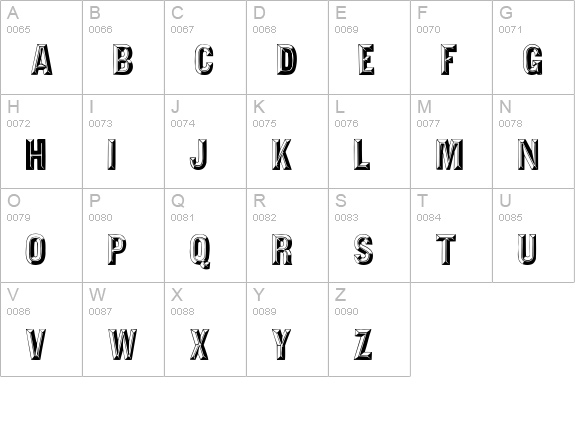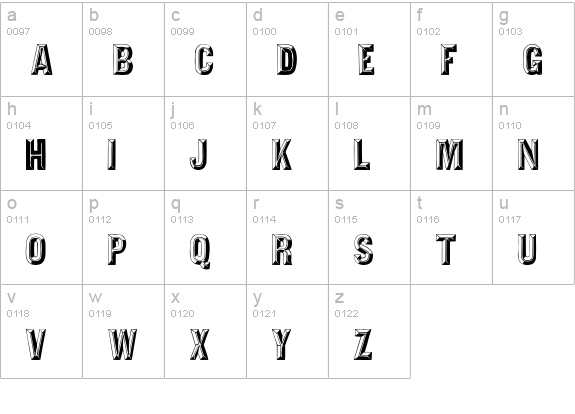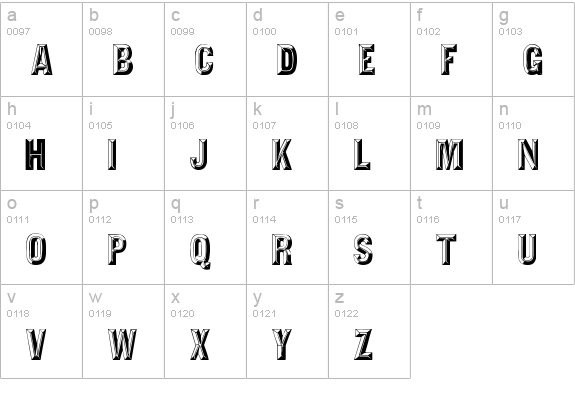
TejaratchiCaps Font Details
TejaratchiCaps is a stunningly stylish font that effortlessly combines elegance with a touch of vintage charm. Its meticulously crafted letterforms exude an air of sophistication, making it the perfect choice for projects that require a touch of class and refinement. With its bold and distinctive design, TejaratchiCaps commands attention and adds a unique flair to any design. Each letter is carefully crafted to create a seamless flow, resulting in a visually appealing and harmonious overall look. The tall and slender proportions of this font give it a modern yet timeless feel, making it versatile for a wide range of design applications. Whether you are working on a logo, branding materials, invitations, or any other creative project, TejaratchiCaps will elevate your design to new heights. Its clean lines and intricate details make it easy to read and visually captivating, ensuring that your message is delivered with utmost clarity and impact. One of the best things about TejaratchiCaps is that it is freely available to download at FontsMarket.com. This means that you can enhance your designs with this exceptional font without any cost or limitations. The ease of access allows designers and enthusiasts alike to explore the endless possibilities and creativity that TejaratchiCaps offers, making it a valuable addition to anyone's font collection. So why wait? Download TejaratchiCaps today and unlock the potential to create stunning designs that leave a lasting impression. With its timeless elegance and versatile appeal, this font will undoubtedly become an indispensable tool for any design project.